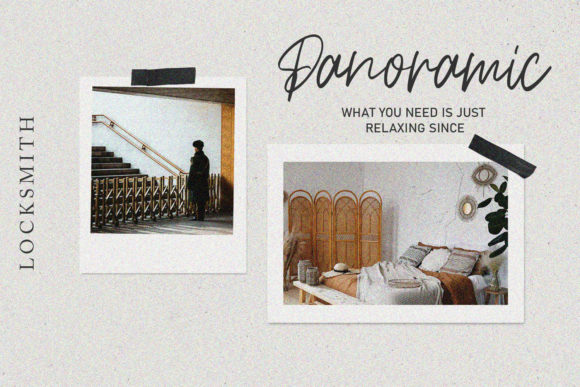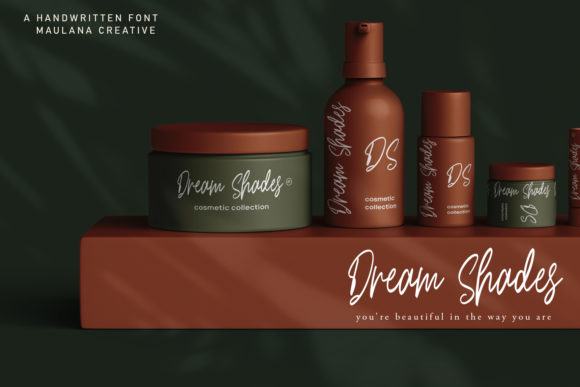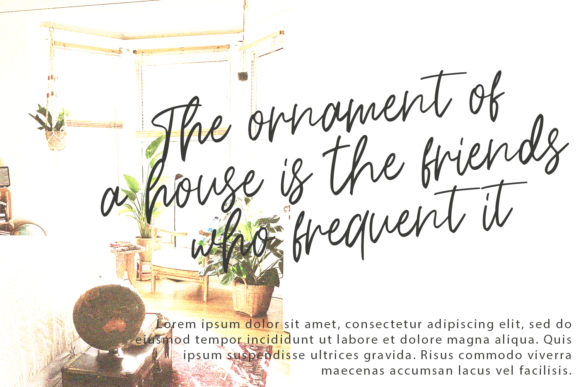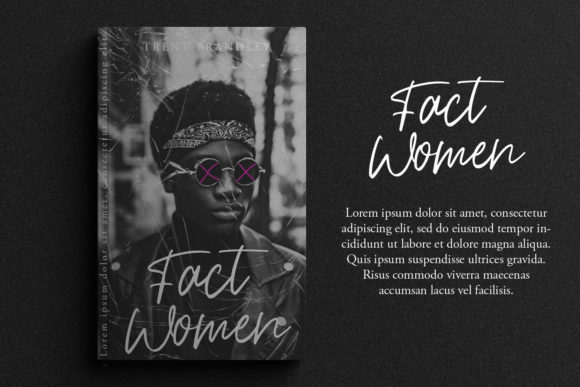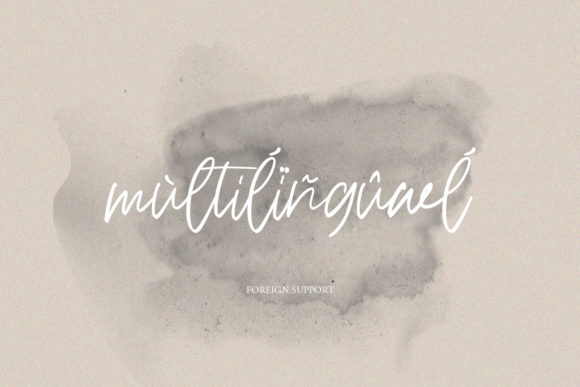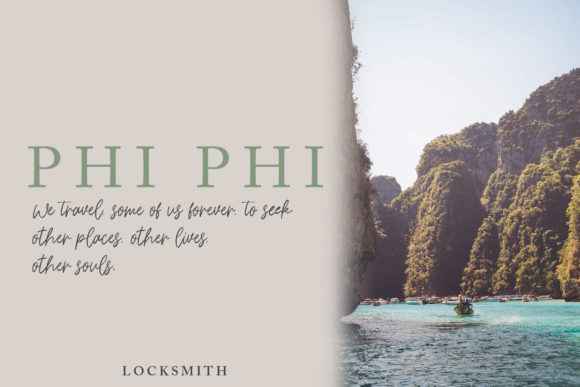
Introduction to Locksmith Font
Locksmith is a modern and casual handwritten font with an incredibly friendly feel.
Whether youโre looking for fonts for Instagram or calligraphy scripts for DIY projects, Locksmith will turn any creative idea into a true piece of art .